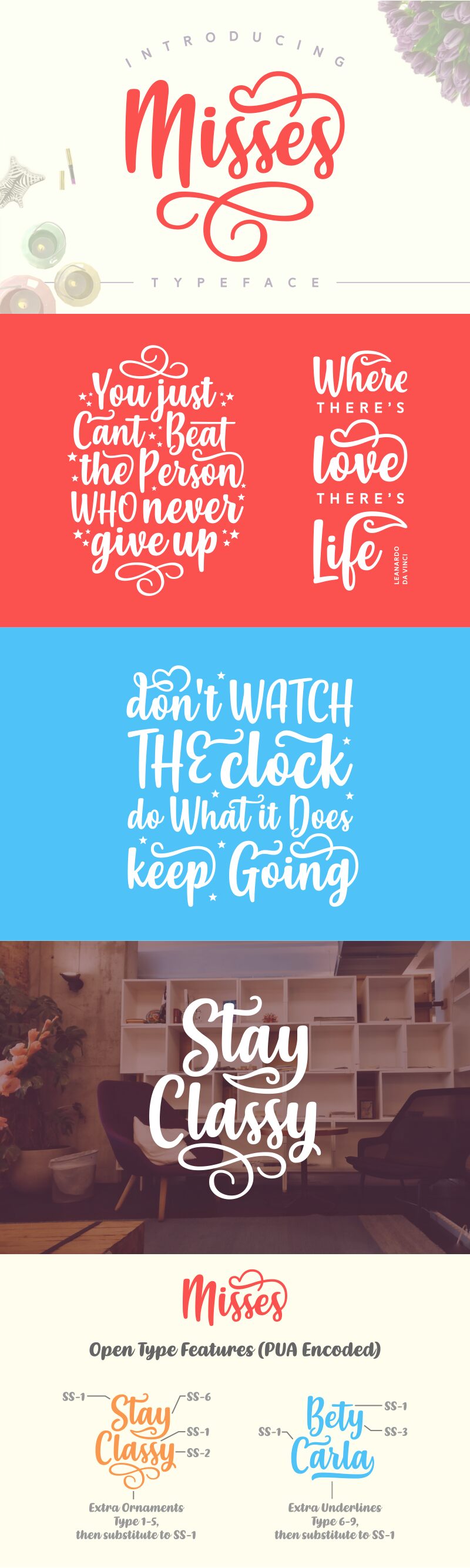
Misses
Misses, a captivating handwritten font crafted by Situjuh Nazara of 7NTypes, exudes a sense of effortless elegance and artistry. This condensed typeface boasts a harmonious blend of bold strokes and graceful curves, creating a visually compelling and distinctive aesthetic. The organic flow of the lettering evokes a raw, expressive energy, making it a compelling choice for projects seeking a touch of authenticity and character.
The versatility of Misses shines through its adaptability to diverse design applications. Its condensed width lends itself seamlessly to eye-catching headlines, impactful branding, and dynamic editorial layouts. Whether adorning product packaging, enhancing wedding stationery, or infusing a sense of warmth into digital interfaces, Misses possesses the versatility to elevate any project with its unique flair.